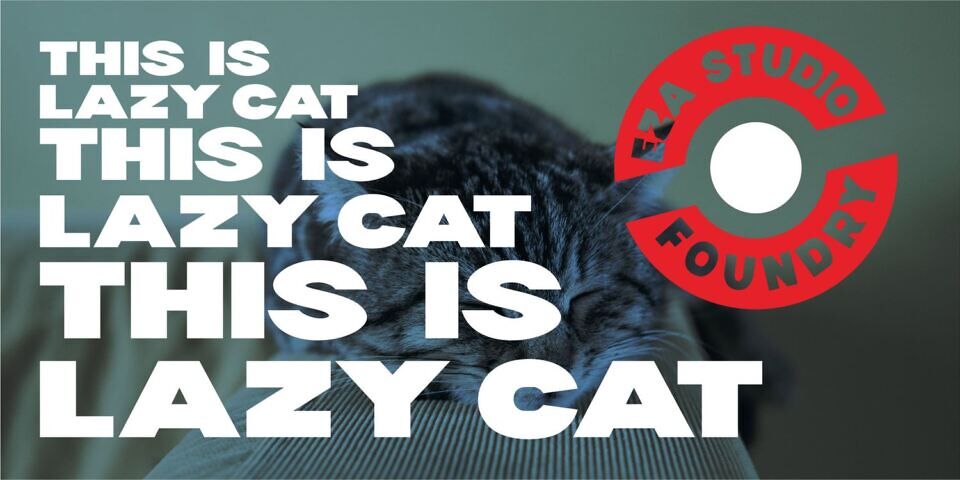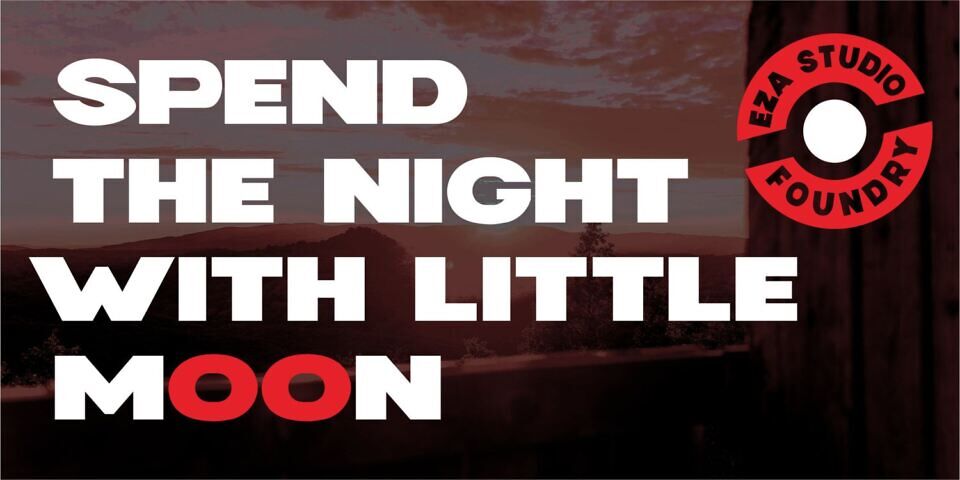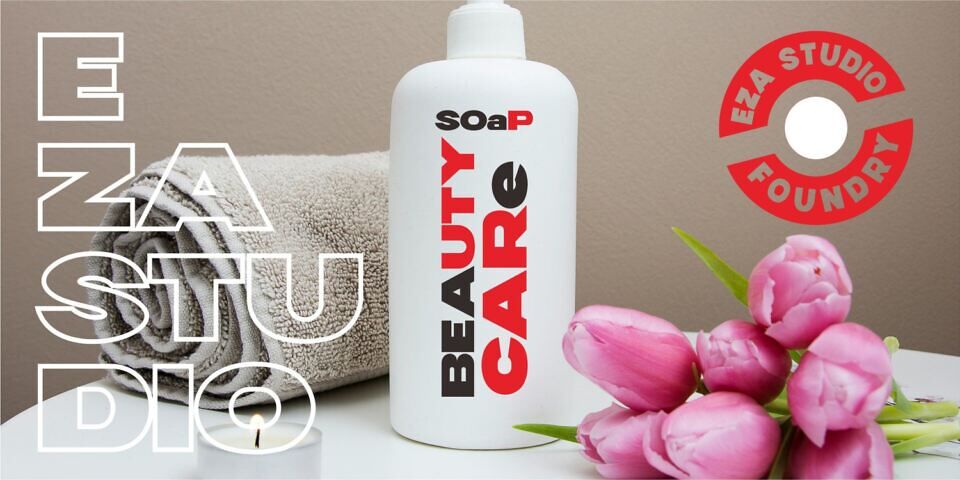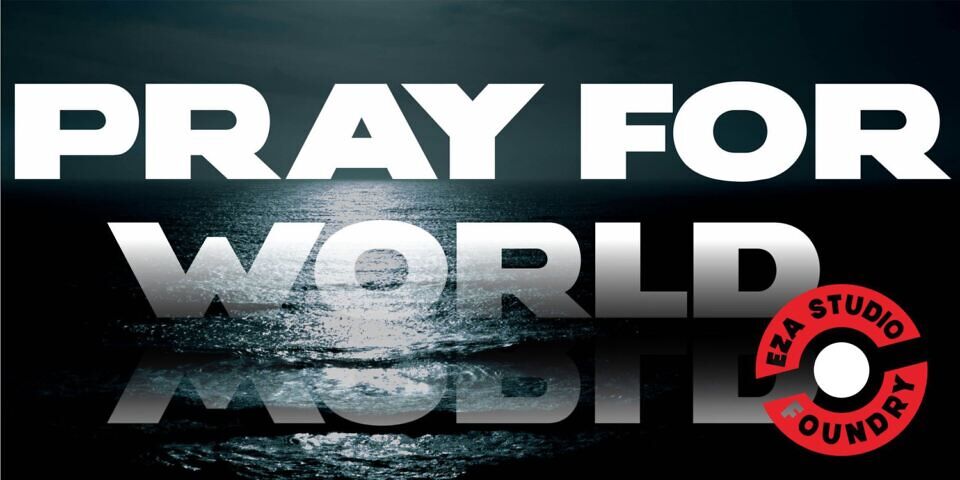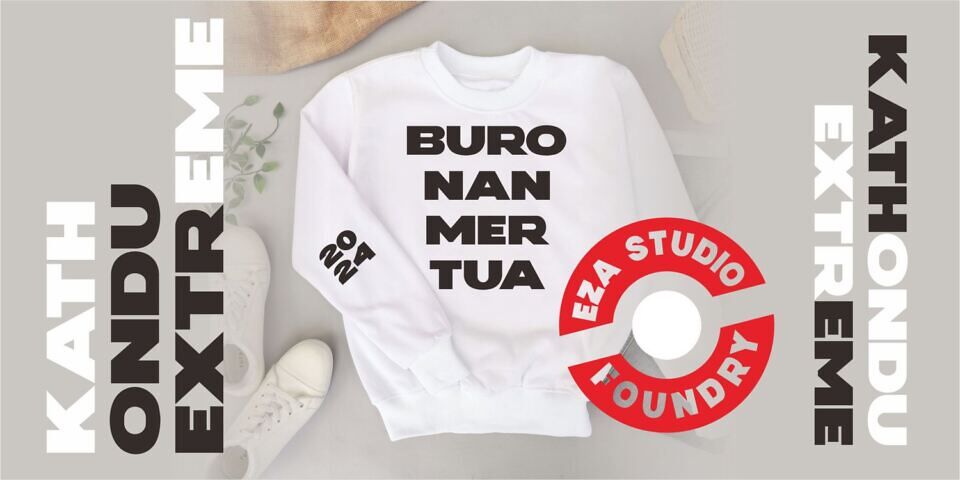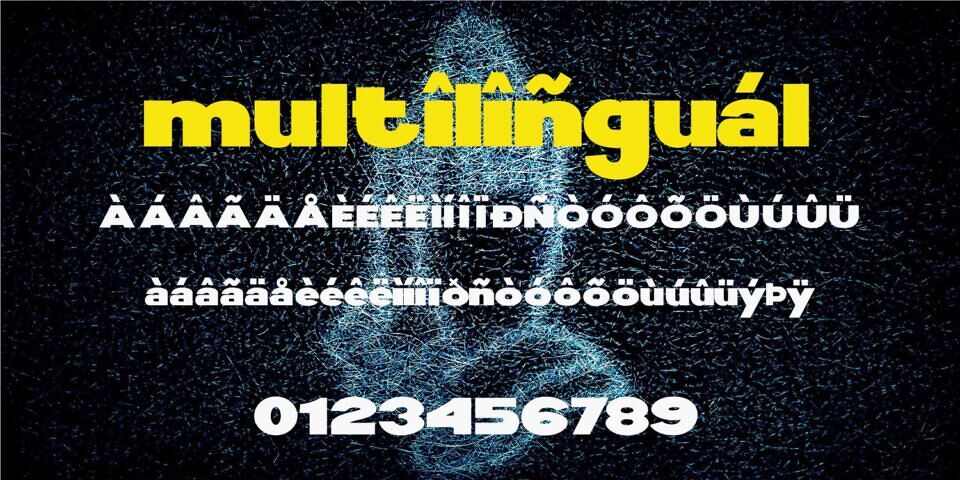
Kathondu Extreme Font
Kathondu Extreme is a bold sans serif display font that is very suitable for modern or classic designs. Kathondu Extreme is designed for logos, titles, book covers and brand identities. You can also use it for small text fragments.